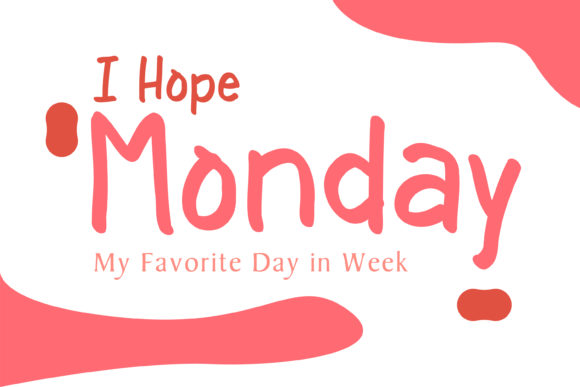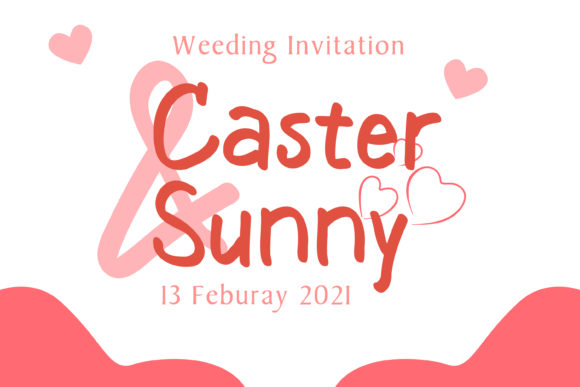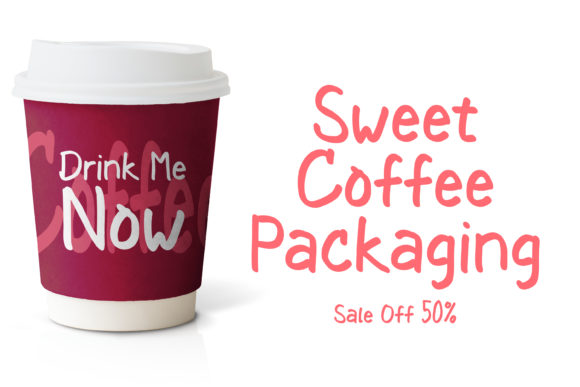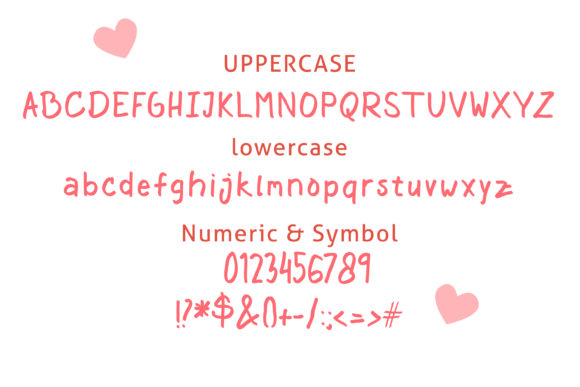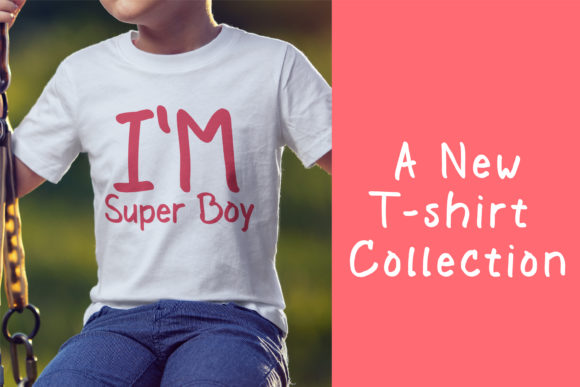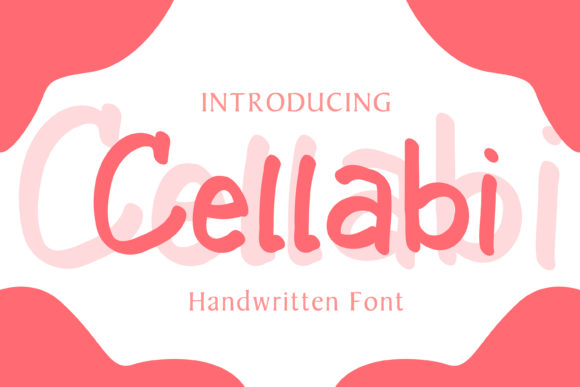
Introducing Cellabi Font: The Playful and Friendly Handwritten Font for Your Creative Projects
Are you tired of using the same old fonts for your design projects? Look no further! Cellabi Font is here to add a touch of playfulness and friendliness to your creations. This beautifully crafted handwritten font is designed to enhance the beauty of your projects, making them stand out from the crowd.
What Makes Cellabi Font Special?
Cellabi Font is a balanced and varied handwritten font that is neither too thin nor too thick. Its unique design makes it perfect for a wide range of projects, from digital designs to print materials. The font’s playful and friendly vibe makes it ideal for designers and crafters who want to add a personal touch to their work.
The Story Behind Cellabi Font
Cellabi Font was designed with the goal of creating a font that is both beautiful and functional. The creator of Cellabi Font wanted to design a font that would be easy to read and write, while also being visually appealing. After careful consideration and attention to detail, Cellabi Font was born.
Key Features of Cellabi Font
- Playful and Friendly: Cellabi Font has a playful and friendly vibe that makes it perfect for designs that require a personal touch.
- Balanced and Varied: The font’s balanced and varied design makes it easy to read and write, while also being visually appealing.
- Handwritten: Cellabi Font is a handwritten font that adds a touch of personality to your designs.
- Versatile: The font is suitable for a wide range of projects, from digital designs to print materials.
How to Use Cellabi Font in Your Projects
Using Cellabi Font in your projects is easy! Here are a few ways you can incorporate the font into your designs:
- Digital Designs: Use Cellabi Font in your digital designs, such as social media graphics, blog posts, and website headers.
- Print Materials: Add Cellabi Font to your print materials, such as brochures, flyers, and business cards.
- Crafting: Use Cellabi Font in your crafting projects, such as handmade cards, scrapbooking, and journaling.
Tips for Pairing Cellabi Font with Other Fonts
Pairing Cellabi Font with other fonts can create a unique and visually appealing design. Here are a few tips for pairing Cellabi Font with other fonts:
- Pair with a Serif Font: Pair Cellabi Font with a serif font, such as Times New Roman or Garamond, for a classic and elegant look.
- Pair with a Script Font: Pair Cellabi Font with a script font, such as Pacifico or Great Vibes, for a playful and whimsical look.
- Pair with a Sans-Serif Font: Pair Cellabi Font with a sans-serif font, such as Arial or Helvetica, for a modern and clean look.
Cellabi Font is a beautiful and versatile handwritten font that can add a touch of playfulness and friendliness to your designs. With its balanced and varied design, Cellabi Font is perfect for a wide range of projects, from digital designs to print materials. Whether you’re a designer or crafter, Cellabi Font is a great addition to your font collection.